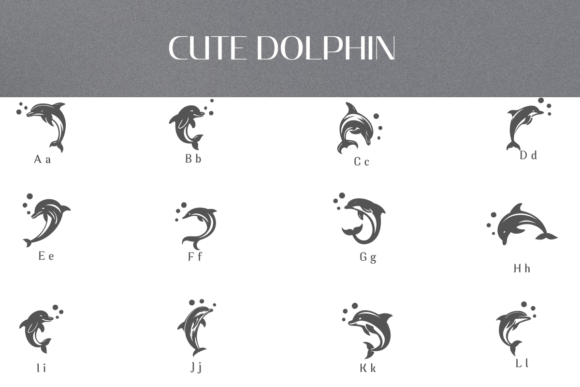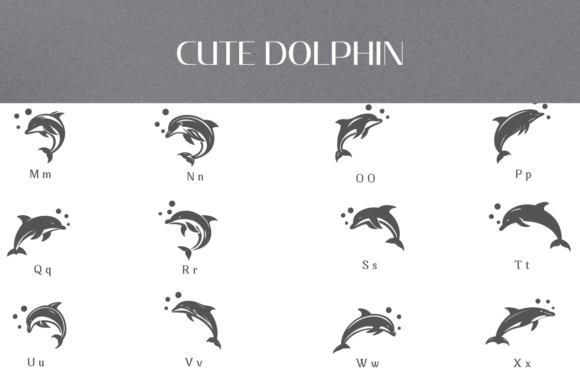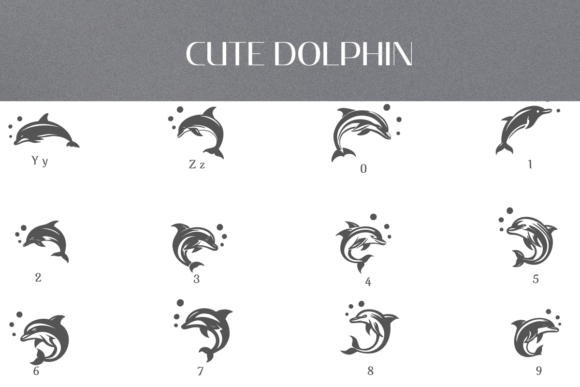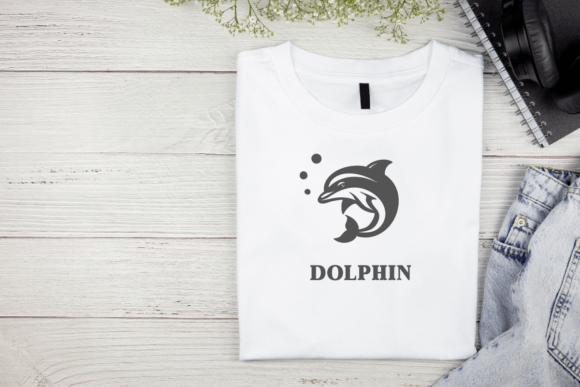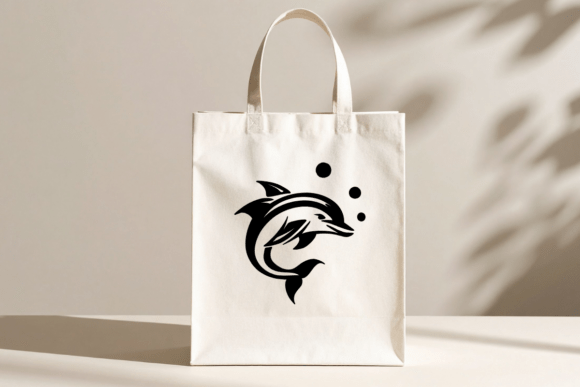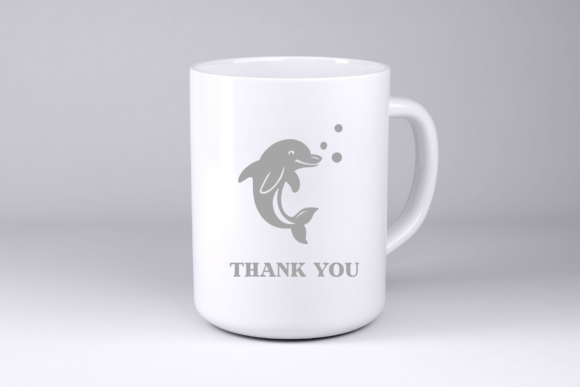
Cute Dolphin Font: Add a Splash of Fun to Your Designs
Are you looking for a unique and playful font to add a touch of whimsy to your creative projects? Look no further than the Cute Dolphin Font, a delightful dingbat font filled with adorable dolphin illustrations that capture the joy and elegance of the ocean.
What is Cute Dolphin Font?
Cute Dolphin is a one-of-a-kind font that features a collection of playful and elegant dolphin illustrations. Each character in the font showcases a unique dolphin design, swimming, leaping, or splashing in a fun and lively way. This font is perfect for designers and crafters who want to add a refreshing, aquatic touch to their projects.
Cute Dolphin Font is ideal for a wide range of creative projects, including:
- Crafts: Add a splash of fun to your handmade crafts, such as cards, gift tags, and DIY decorations.
- Children’s designs: Create engaging and interactive designs for kids, including coloring books, activity sheets, and educational materials.
- Logos: Make a splash with your brand identity using Cute Dolphin Font in your logo designs.
- Invitations: Create playful and elegant invitations for parties, events, and special occasions.
- Stationery: Add a touch of whimsy to your stationery, including notebooks, journals, and greeting cards.
- Packaging: Use Cute Dolphin Font to create eye-catching packaging designs for products, such as soap, candles, and other ocean-inspired goods.
- Home decor projects: Add a splash of fun to your home decor projects, including wall art, decals, and iron-on designs.
Key Features of Cute Dolphin Font
Cute Dolphin Font offers a range of features that make it perfect for designers and crafters:
- Smooth vector shapes: Ensure crisp, high-quality results whether you’re working in print or digital formats.
- Fully compatible: Works seamlessly with cutting machines and design software, making it easy to create stickers, SVG crafts, patterns, and themed decorations.
- Unique illustrations: Each character features a unique dolphin design, ensuring your projects stand out from the crowd.
- Fun and stylish: Perfect for ocean-inspired artwork or marine-themed branding, Cute Dolphin Font embodies freedom, playfulness, and joy.
Why Choose Cute Dolphin Font?
With Cute Dolphin Font, you can:
- Add a touch of whimsy: Bring a sense of motion and liveliness to your designs with this playful font.
- Create engaging designs: Perfect for designers and crafters who want to create interactive and fun designs for kids and adults alike.
- Make a splash: Stand out from the crowd with this unique and eye-catching font that’s sure to capture attention.
Cute Dolphin Font is a delightful dingbat font that’s perfect for designers and crafters who want to add a splash of fun to their creative projects. With its unique illustrations, smooth vector shapes, and compatibility with cutting machines and design software, this font is ideal for a wide range of applications. Whether you’re creating crafts, children’s designs, logos, or home decor projects, Cute Dolphin Font is sure to bring a sense of joy and playfulness to your designs. So why not make a splash with Cute Dolphin Font and add a touch of whimsy to your next project?